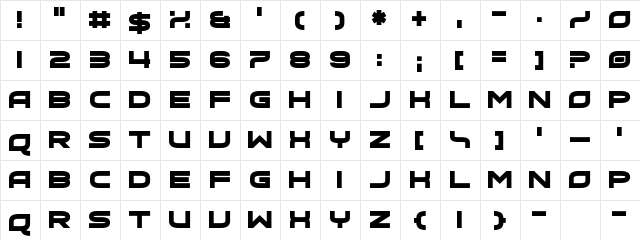
Hot Bleb Regular
| Designer | NAL |
Design Context for Hot Bleb Typeface
Hot Bleb offers clean, dependable letterforms without strong stylistic allegiance, making it a practical choice for designers who need flexibility.
Pro Tip: Pair Hot Bleb with a font of contrasting weight or personality to build a more expressive typographic hierarchy.